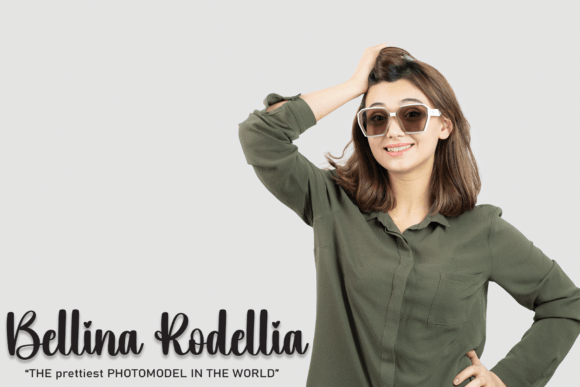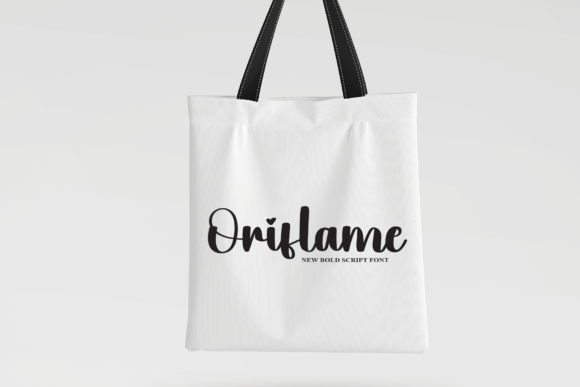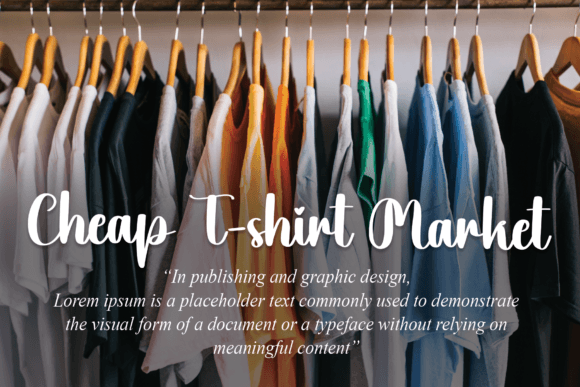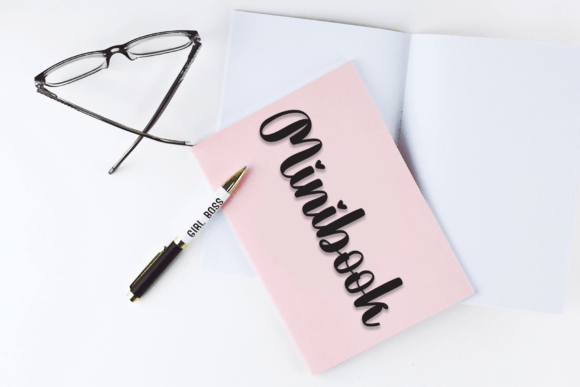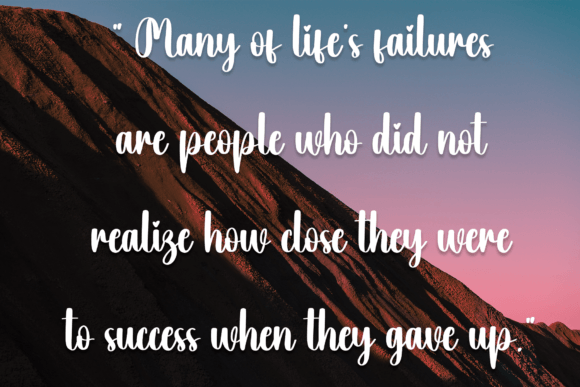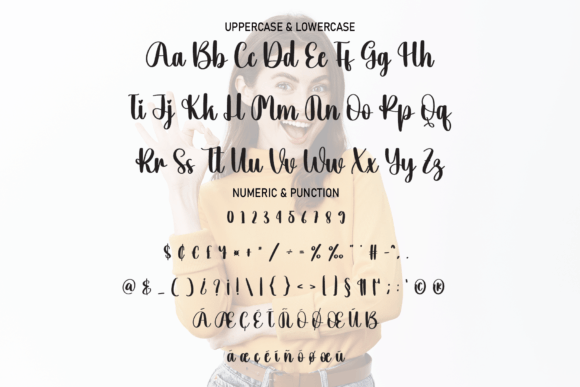
Introducing Alright Font: The Cute and Adorable Handwritten Script Font
Are you looking for a font that can add a touch of joy and romance to your design projects? Look no further than Alright Font, a beautiful handwritten script font that is sure to delight. With its gentle and adorable aesthetic, Alright Font is the perfect choice for designers and crafters who want to create stunning and eye-catching designs.
What Makes Alright Font So Special?
Alright Font is a unique and charming handwritten script font that is designed to bring a sense of warmth and personality to your designs. Its gentle curves and soft lines make it perfect for creating beautiful and feminine designs that are sure to capture the attention of your audience. Whether you’re working on a branding project, a wedding invitation, or a social media graphic, Alright Font is the perfect choice.
Features of Alright Font
Alright Font comes with a range of features that make it a versatile and practical choice for designers and crafters. Some of its key features include:
• Handwritten script style: Alright Font has a beautiful handwritten script style that is perfect for creating feminine and elegant designs.
• Gentle and soft lines: The font features gentle and soft lines that give it a warm and inviting feel.
• Unique and charming aesthetic: Alright Font has a unique and charming aesthetic that is sure to make your designs stand out.
• Easy to read: Despite its ornate style, Alright Font is easy to read and can be used for both headings and body text.
Design Ideas to Use Alright Font
Alright Font is a versatile font that can be used for a wide range of design projects. Here are some ideas to get you started:
• Wedding invitations and stationery: Alright Font is perfect for creating beautiful and romantic wedding invitations and stationery.
• Branding and packaging: Use Alright Font to create stunning branding and packaging designs that reflect your brand’s personality.
• Social media graphics: Alright Font is great for creating eye-catching social media graphics that will help you stand out from the crowd.
• Blog and website headers: Use Alright Font to create beautiful and feminine blog and website headers that will make your site look stunning.
Tips for Using Alright Font
Here are some tips for using Alright Font to get the best results:
• Use it for headings and titles: Alright Font is perfect for headings and titles, but it can also be used for body text in smaller sizes.
• Pair it with other fonts: Experiment with pairing Alright Font with other fonts to create a unique and interesting look.
• Adjust the size and color: Adjust the size and color of Alright Font to suit your design needs.
Alright Font is a beautiful and adorable handwritten script font that is sure to bring a touch of joy and romance to your design projects. With its gentle and soft lines, unique aesthetic, and versatility, Alright Font is the perfect choice for designers and crafters who want to create stunning and eye-catching designs. So why not give Alright Font a try and see the difference it can make in your designs?